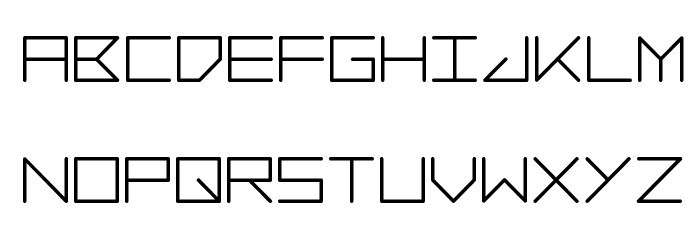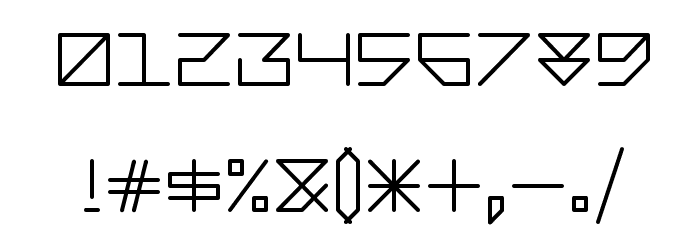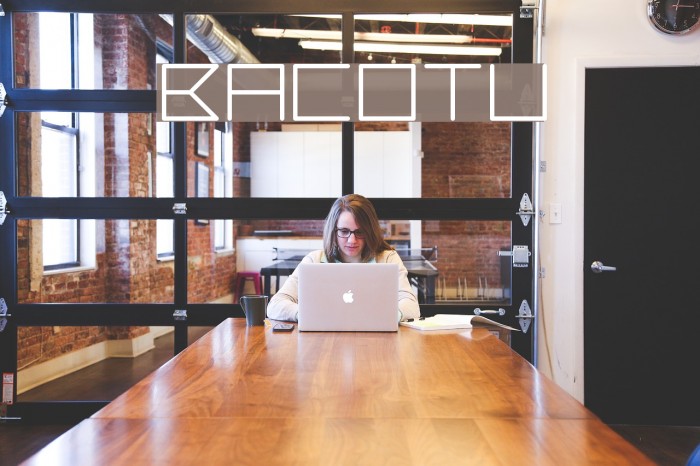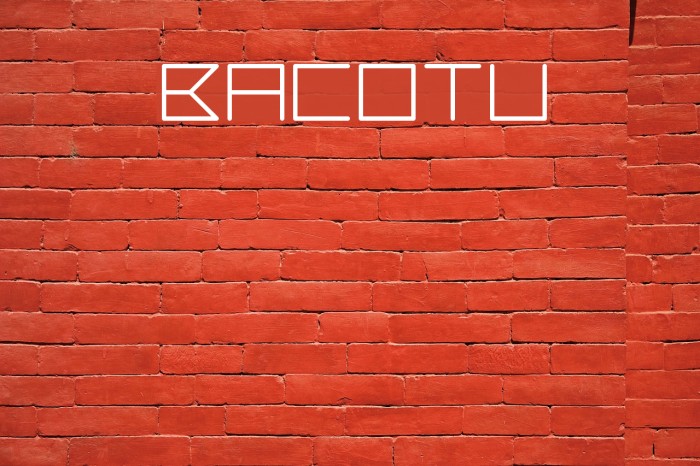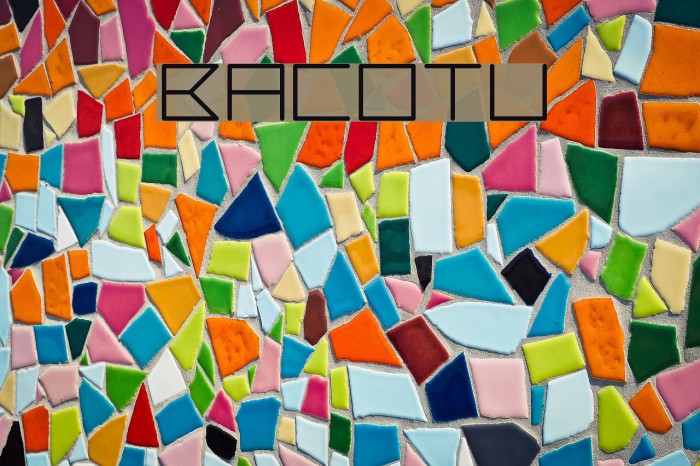
Bacotu Font
This font features a unique geometric design with a futuristic and abstract aesthetic. The uppercase letters are constructed with angular lines and sharp edges, creating a sense of modernity and innovation. The lowercase letters maintain a similar style, ensuring consistency throughout the typeface. The numerals are designed with a minimalist approach, complementing the overall geometric theme. Special characters are included, each following the same angular and structured design. The font's distinct style makes it suitable for projects that require a modern and edgy look.
A geometric and futuristic font with angular lines and sharp edges.
- Proposed Projects: Ideal for tech branding, sci-fi posters, modern art projects, and innovative product packaging.